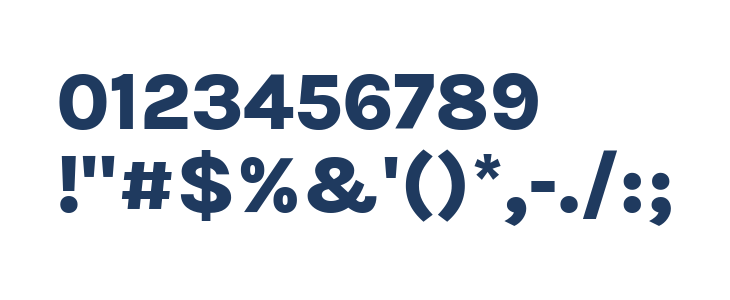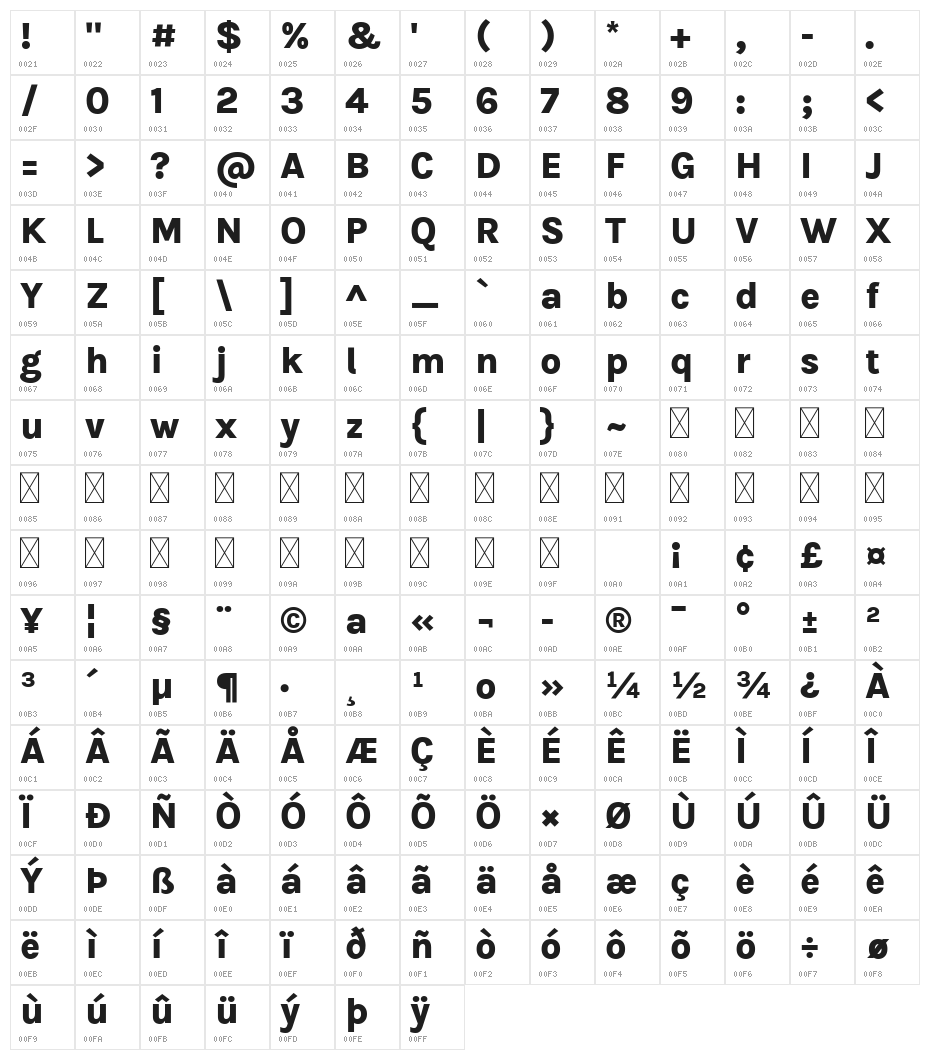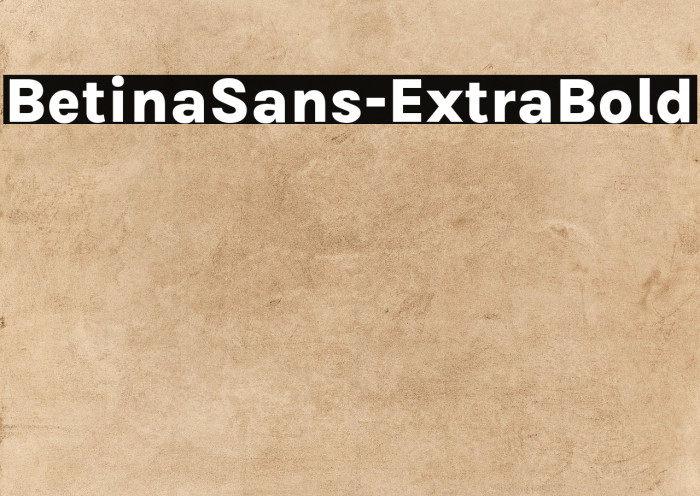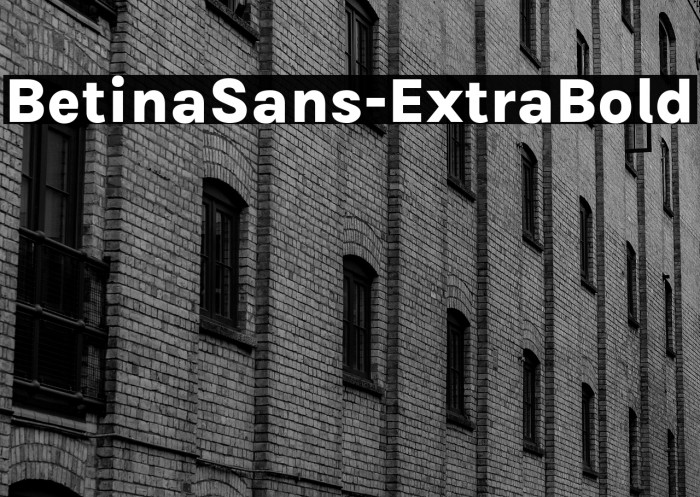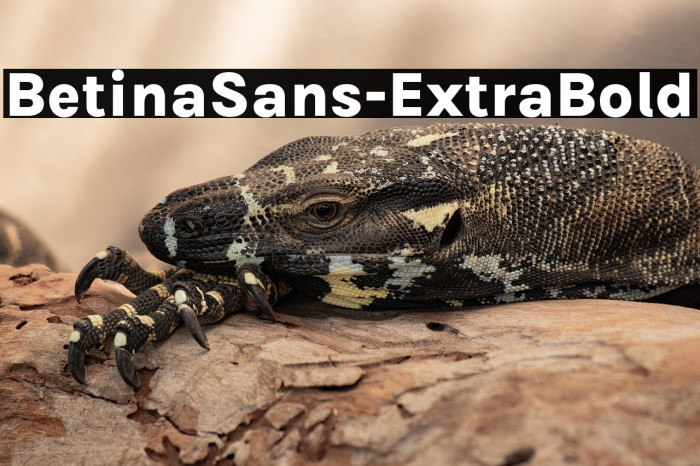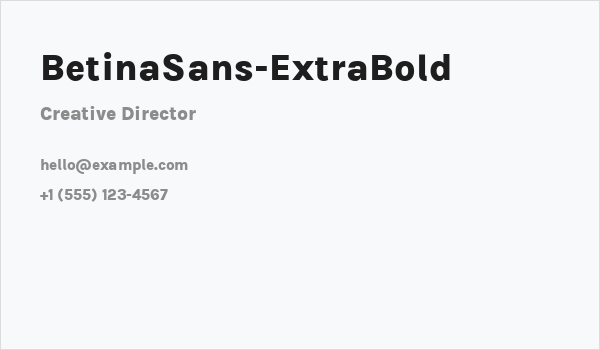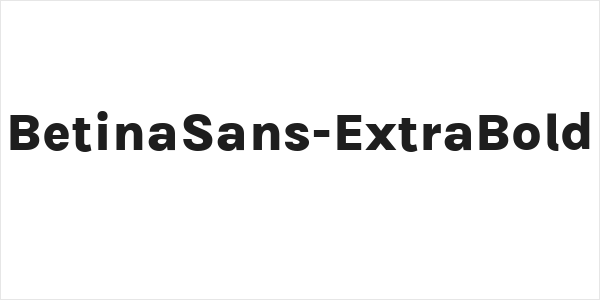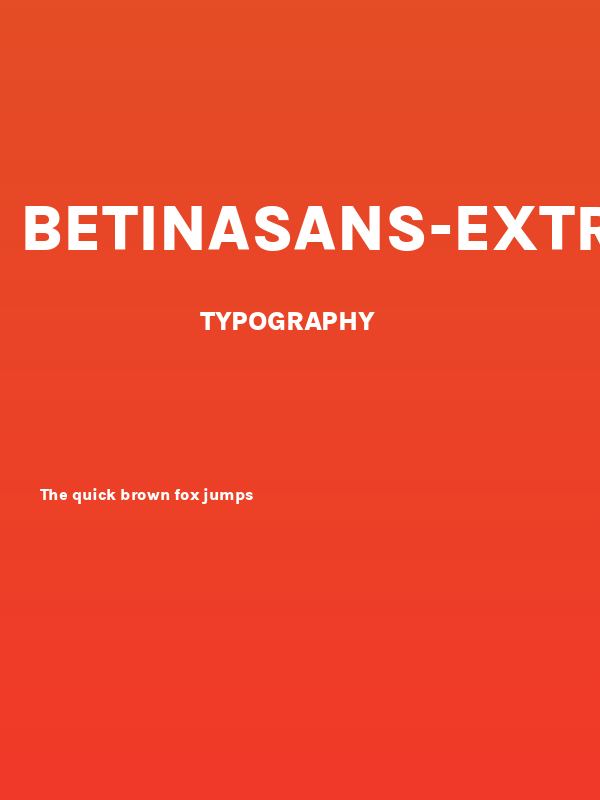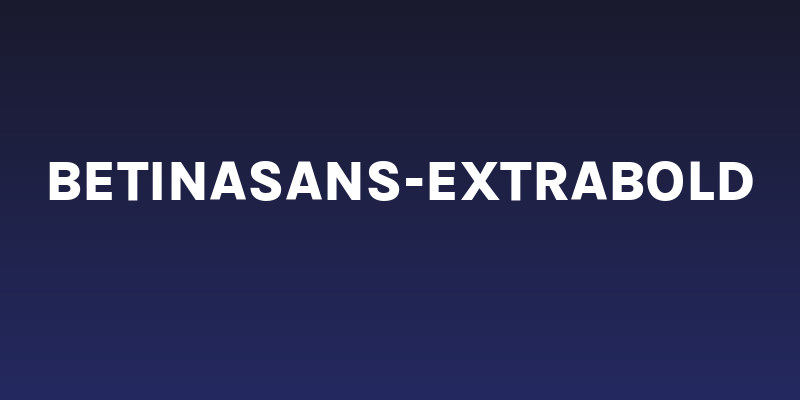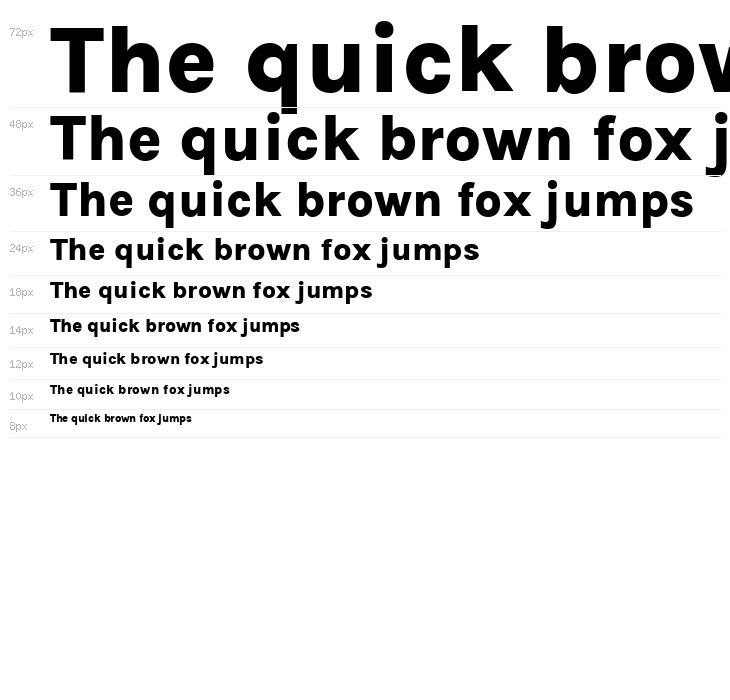
BetinaSans-ExtraBold Font
BetinaSans-ExtraBold Description
This typeface is characterized by its bold, strong presence, making it highly suitable for impactful headlines and attention-grabbing text. The letters are uniformly thick, with a consistent stroke width that conveys a sense of stability and modernity. The design is clean and straightforward, with no unnecessary embellishments, emphasizing clarity and readability. The uppercase and lowercase letters maintain a balanced proportion, ensuring legibility across different sizes. The numerals are equally bold, matching the overall aesthetic of the alphabetic characters. Special characters are included, maintaining the same bold style, which ensures consistency throughout the typeface.
| Proposed Projects | This font is perfect for branding projects, advertising campaigns, poster designs, and any application where a strong, modern typeface is required. |